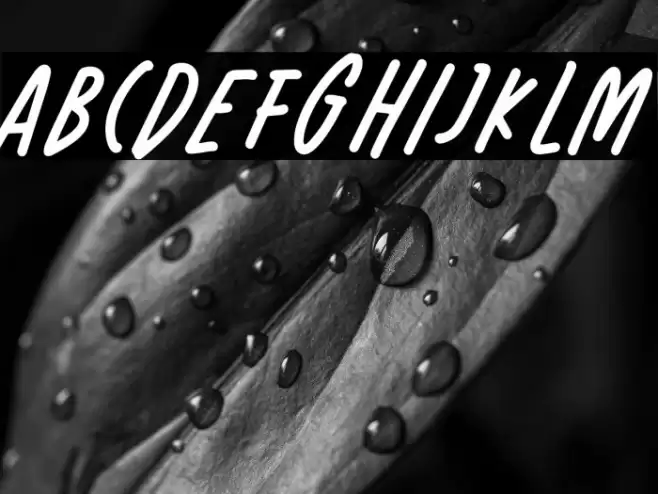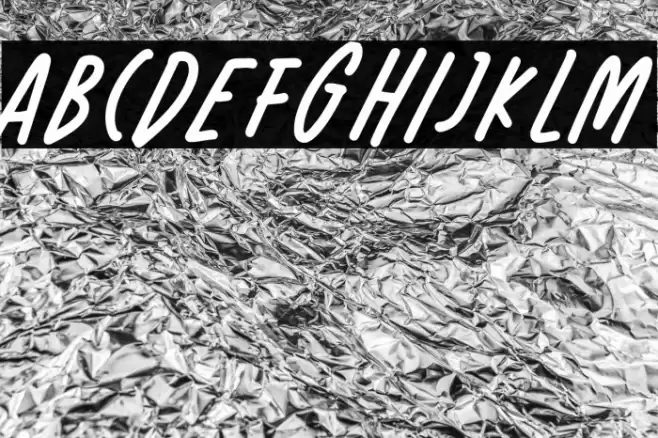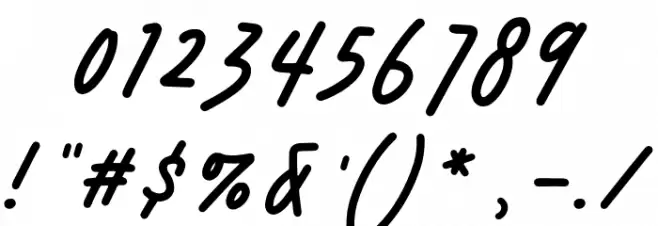
HelloSisterSansdemo Font
HelloSisterSansdemo Description
This font features a handwritten style with a casual and friendly appearance. The characters are slightly slanted, giving it a dynamic and lively feel. The strokes are smooth and consistent, with a medium thickness that maintains readability while adding a personal touch. The uppercase and lowercase letters are well-proportioned, and the numbers and special characters complement the overall style. This font is versatile, suitable for projects that require a personal or informal tone.
A casual handwritten font with smooth, slightly slanted strokes from Uncategorized fonts.
- Font: HelloSisterSansdemo
- Proposed Projects: Ideal for greeting cards, personal branding, social media graphics, and informal invitations.
- Overall Style: Casual, Friendly
- Use Case: Logos, Headlines, Informal Text